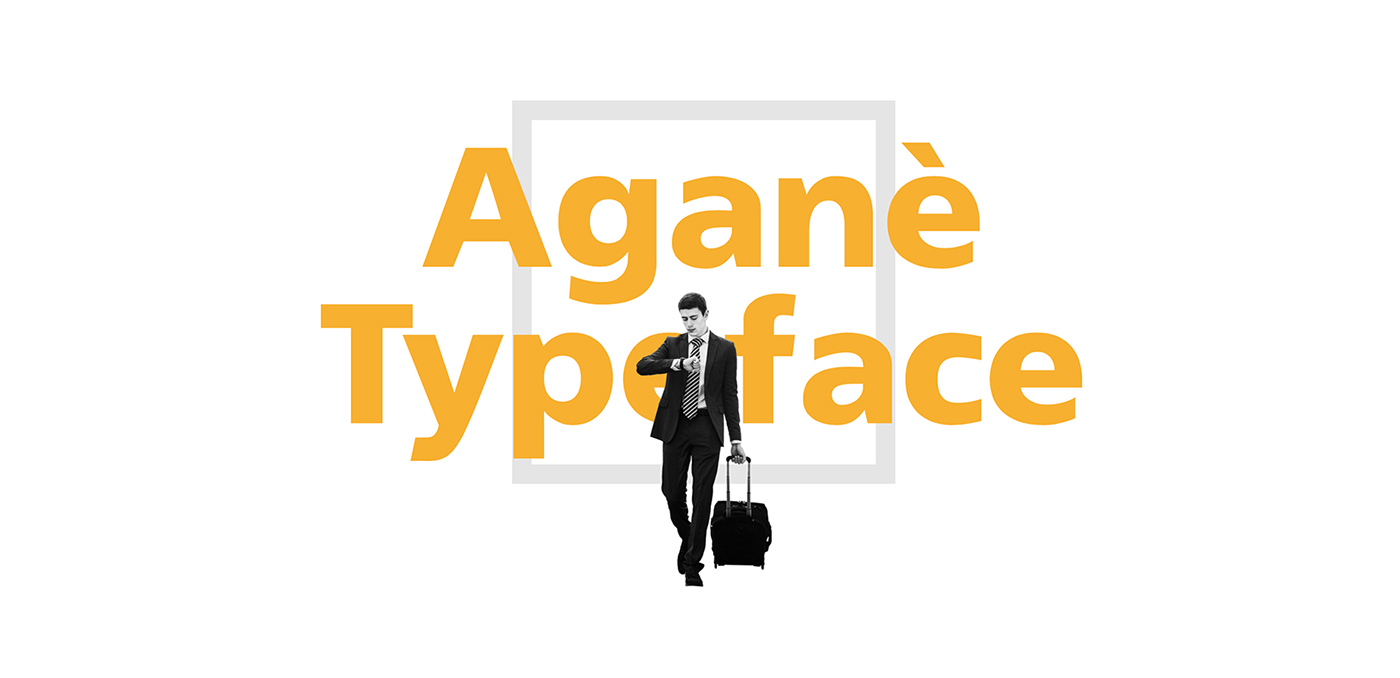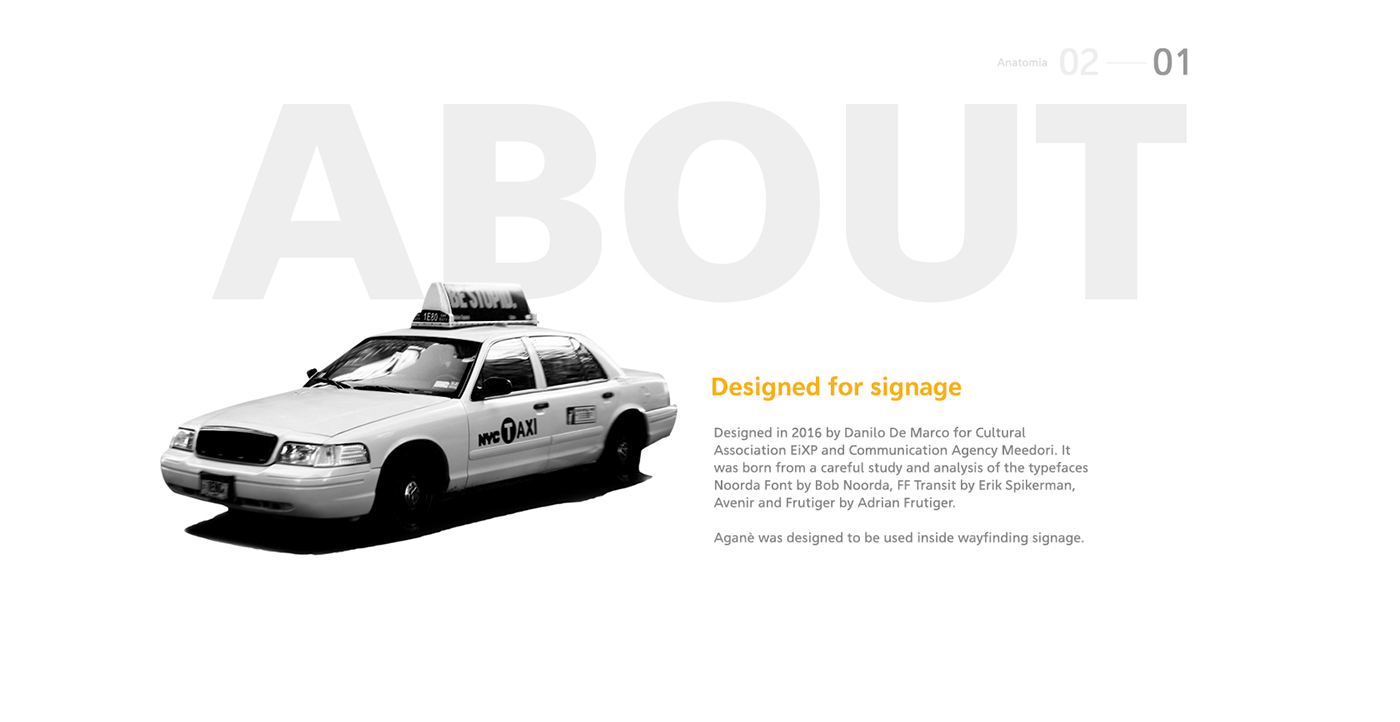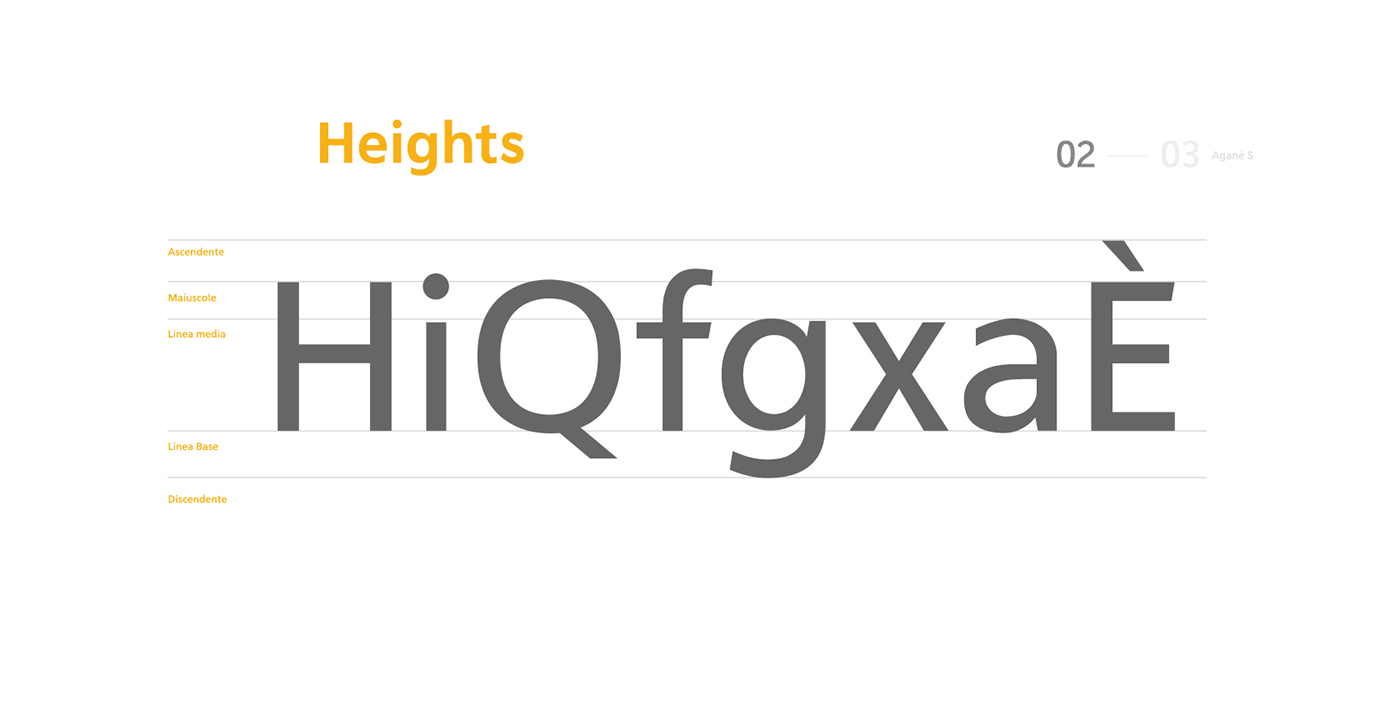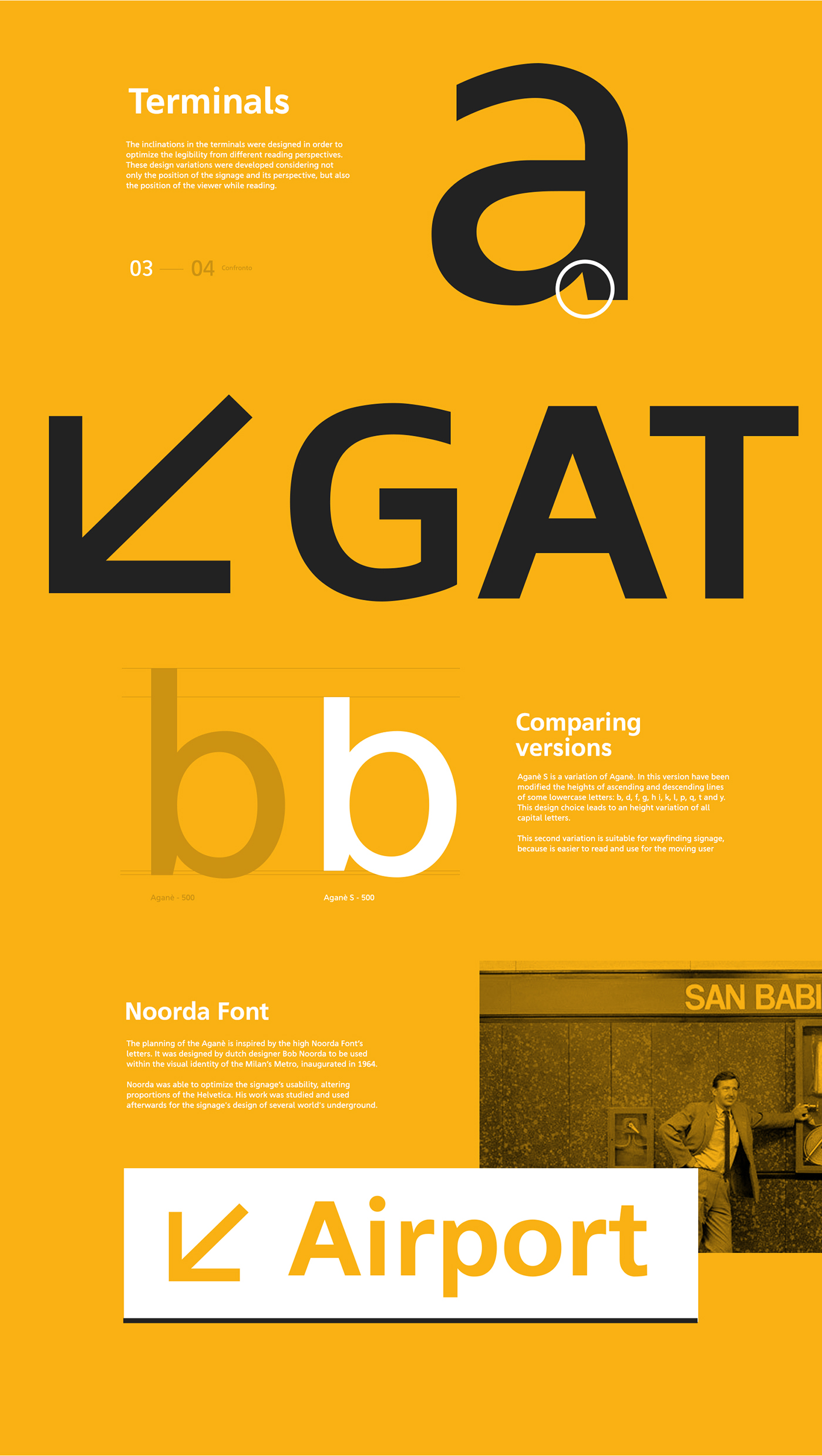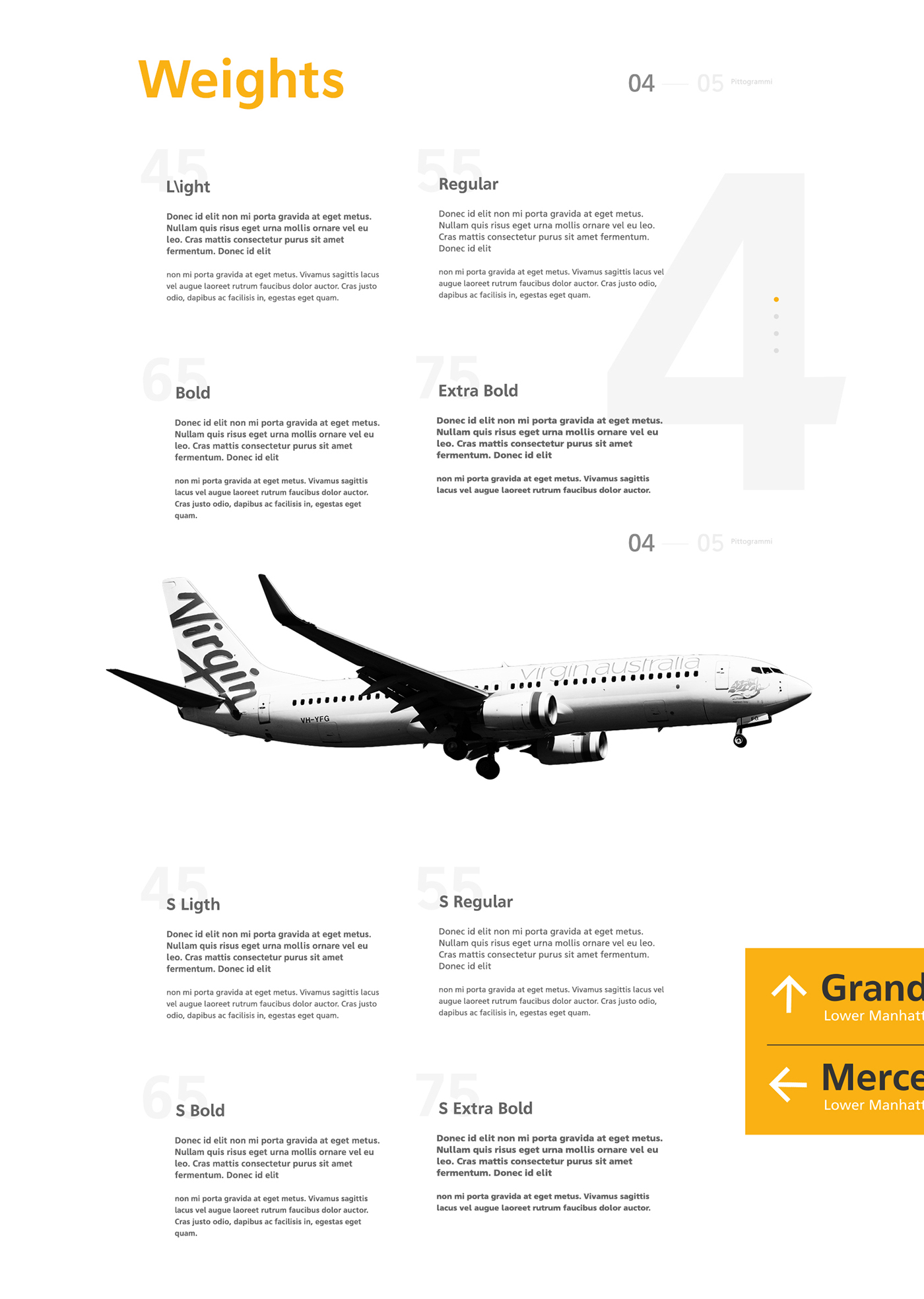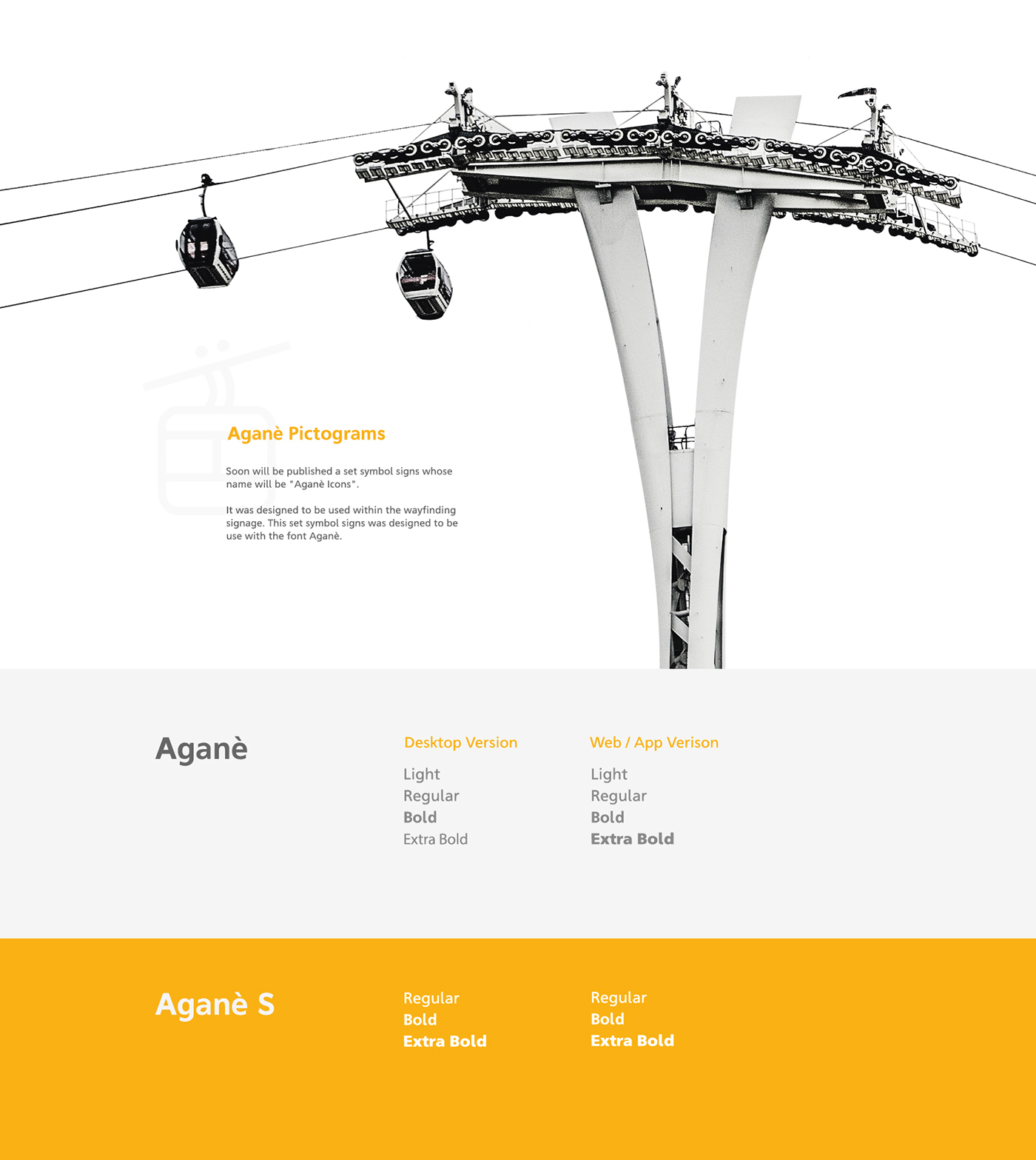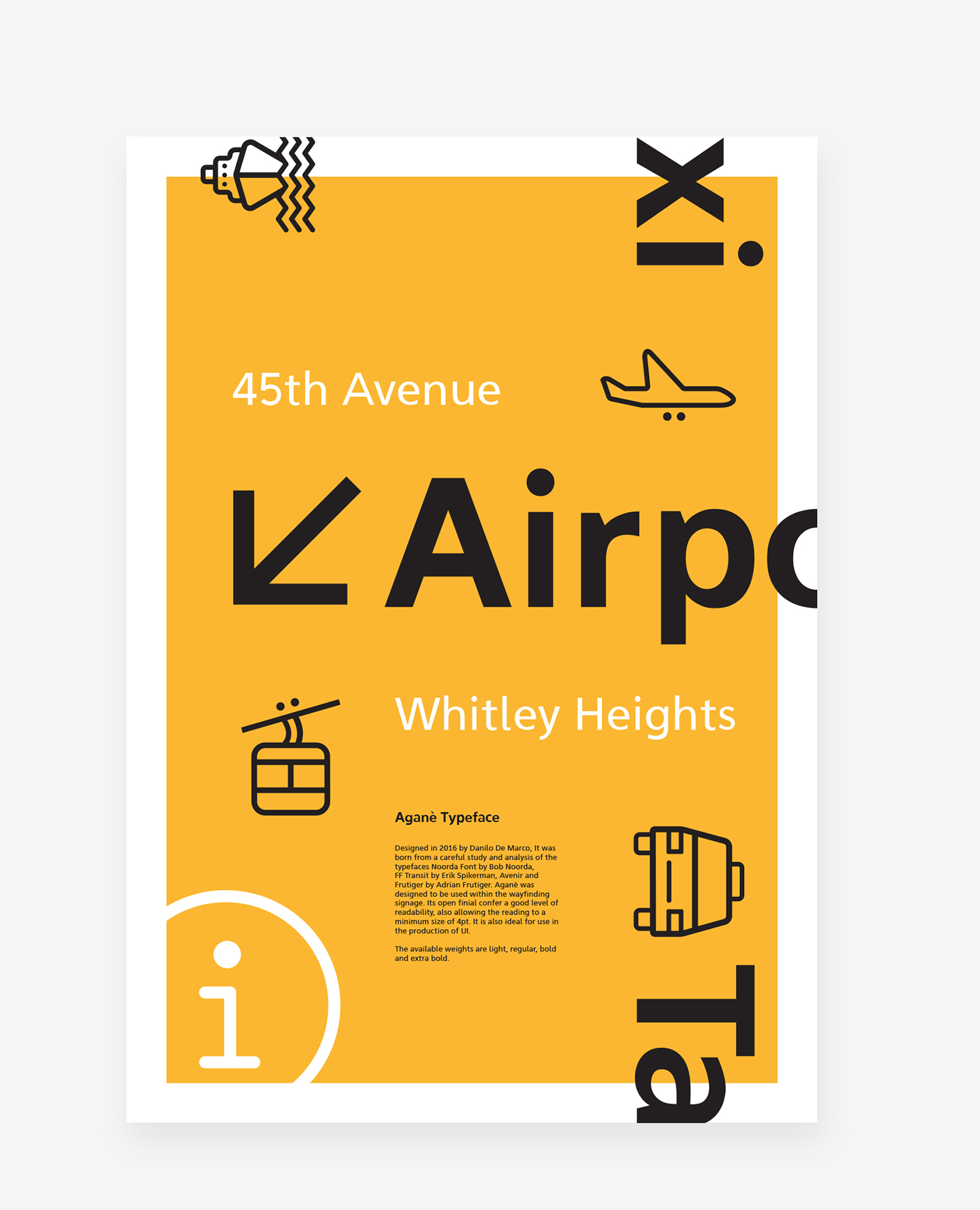
Aganè was designed by Danilo De Marco from Lugano, Switzerland. This beautiful typeface was created to be used within the wayfinding and signage design. Its open finial confers a good level of readability, allowing the reading to a minimum size of 4pt. It’s also ideal for use in the production of UI. The available weights are light, regular, bold and extra bold.